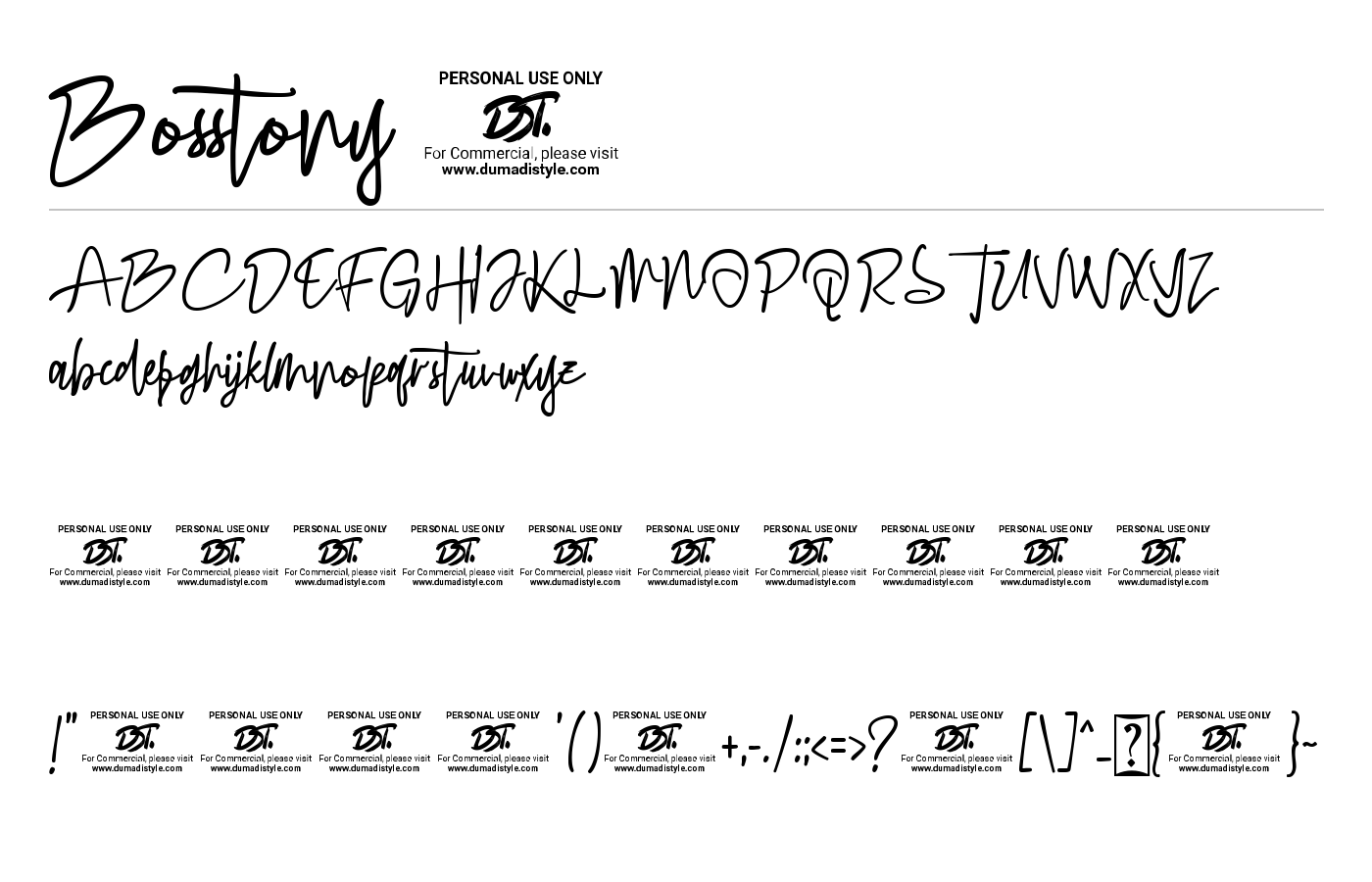
Bosstony 4 is a playful and casual script font with a hand-drawn feel, featuring lively, slightly irregular strokes that give it a personal and authentic touch. Its light weight and tall, narrow proportions make it ideal for creative projects that want to convey friendliness and approachability, such as branding, invitations, or social media graphics. This font works especially well in headlines and logos where a relaxed, modern handwritten style is desired.
Bosstony 4 Font
About Bosstony 4 Font
| Font family | Bosstony 4 Font |
| Designer | Toni Dzulham |